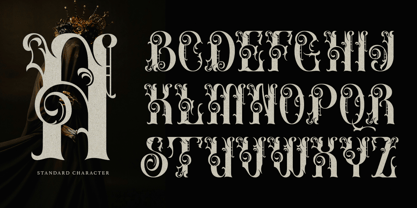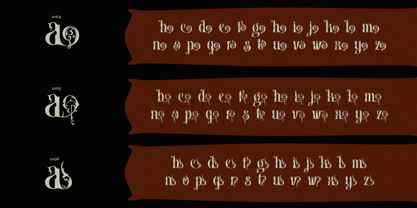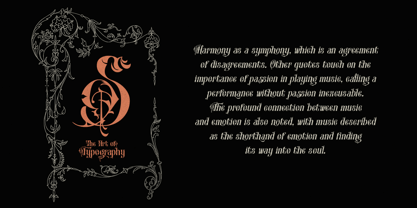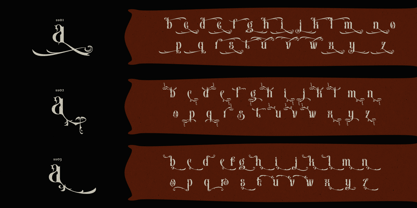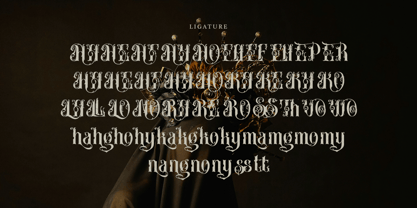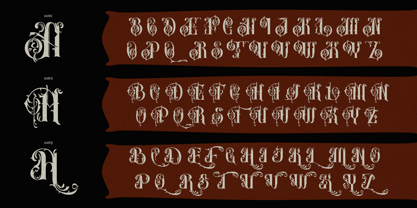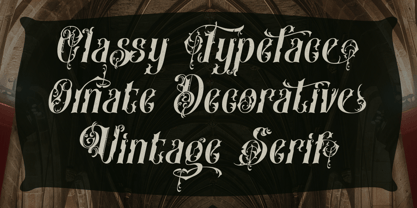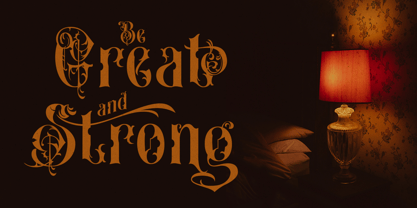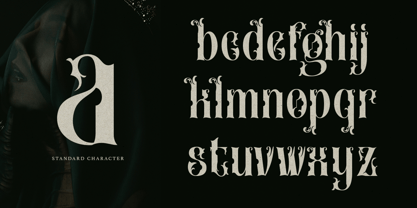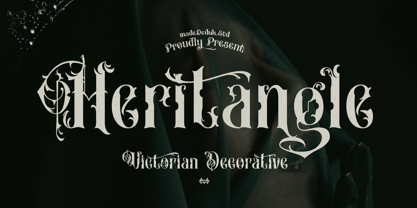
Heritangle
by madeDeduk
The Heritangle Font Family was designed by madededuk and published by madeDeduk. Heritangle contains 2 styles and family package options. More about this family
Introducing Heritangle inspired by the grandeur of the Victorian era, this font seamlessly blends bold serif structures with intricate floral ornaments that flow through every corner of the letterforms. Each character is precision-crafted to evoke a sense of luxury, heritage, and exclusivity. This typeface is perfect for premium branding, historical book titles, or any visual identity seeking a high-end aristocratic touch. This decorative typeface is a celebration of organic beauty captured in typography. Featuring intertwining tendrils and swirling flourishes on every letter, the design creates a perfect harmony between bold, heavy strokes and delicate botanical details. Its elaborate visual presence makes it a standalone work of art, ideal for bringing a dramatic, magical, and highly detailed artistic character to any creative project
Designers: madededuk
Foundry: madeDeduk